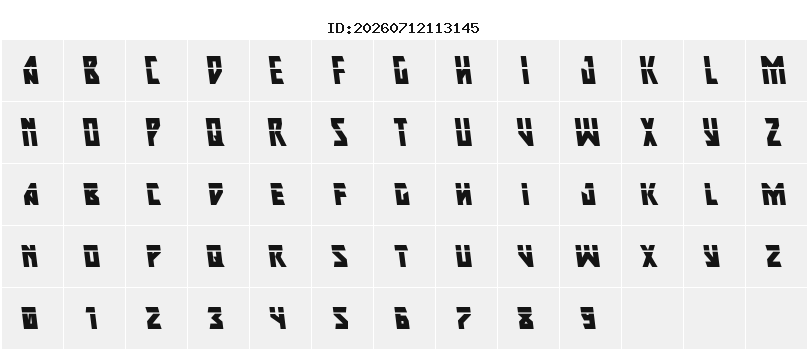
About Major Force Laser Leftalic.ttf
Major Force Laser Leftalic.ttf is a modern, elegant sans-serif font designed for ultimate readability and visual harmony. Perfect for branding, headlines, web design, and print materials.